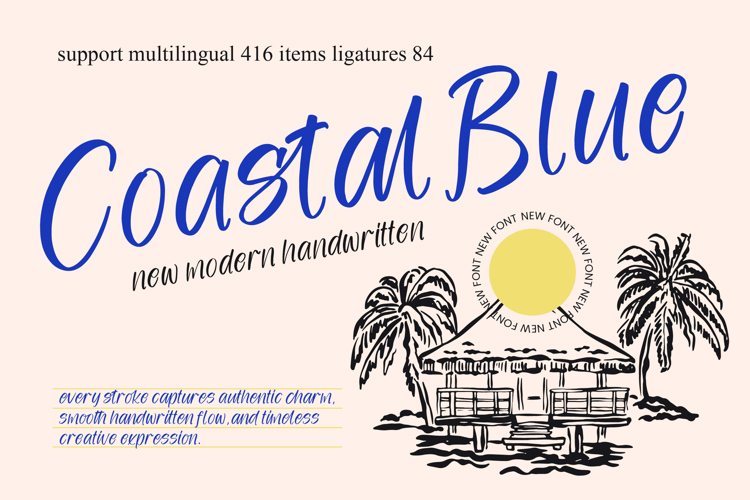
Coastal Blue - New Modern Handwritten
Experience the perfect blend of organic elegance and contemporary flair with Coastal Blue - New Modern Handwritten. This typeface captures an authentic charm and smooth handwritten flow that brings a , artisanal touch to any digital or print canvas. Its high-contrast strokes and dynamic letterforms evoke a sense of effortless sophistication, making it an essential tool for designers seeking a balance between casual aesthetics and professional precision.
With its extensive multilingual support and over 400 glyphs, Coastal Blue - New Modern Handwritten adapts seamlessly across global markets, making it incredibly versatile for international projects. The inclusion of 84 custom ligatures ensures that every word maintains a natural, fluid connection, mimicking the nuances of real penmanship. This global adaptability empowers brands to communicate consistently and elegantly to a diverse, worldwide audience without compromising on style.